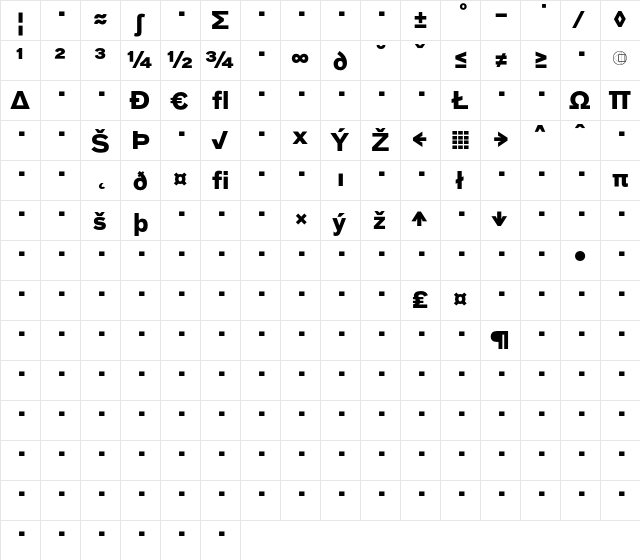
Bau-BoldExpert Regular Font Preview
Bau-BoldExpert Regular
Bau-BoldExpert Regular Font Details
Design Context for Bau-BoldExpert Typeface
Bau-BoldExpert offers clean, dependable letterforms without strong stylistic allegiance, making it a practical choice for designers who need flexibility. The heavy weight commands attention and anchors typographic hierarchies.